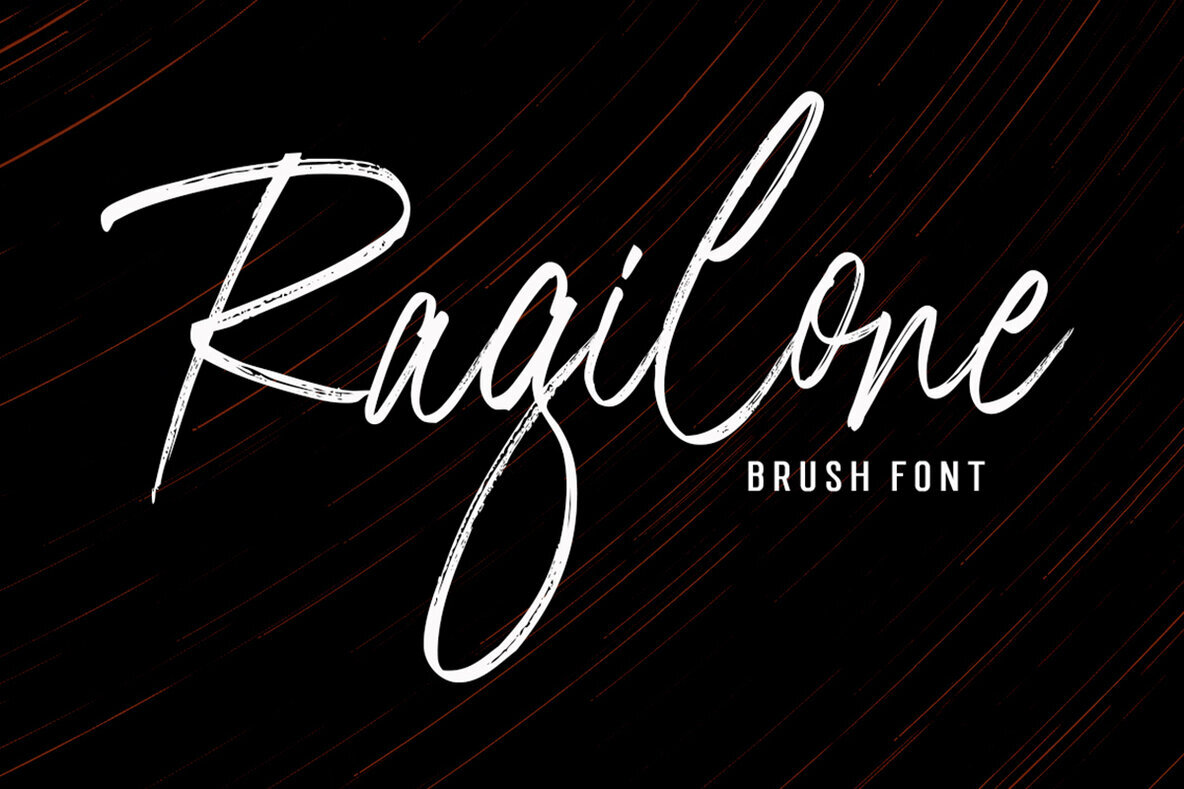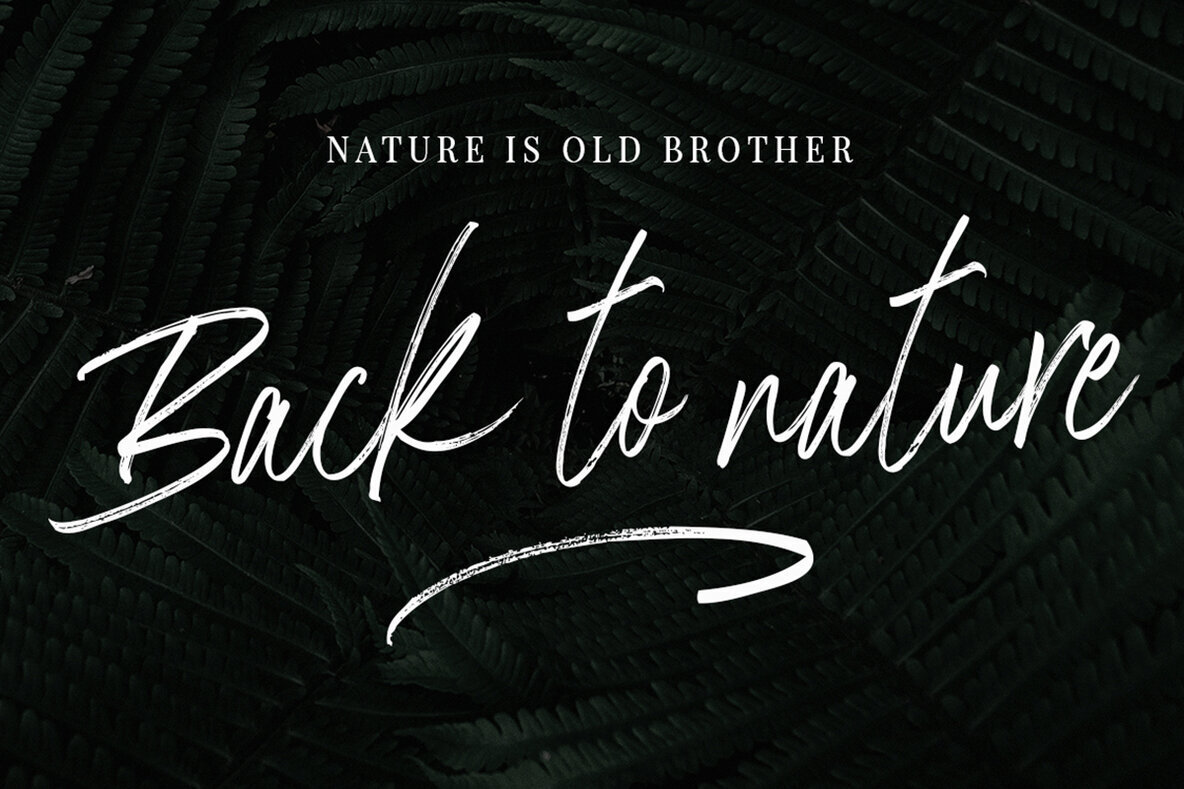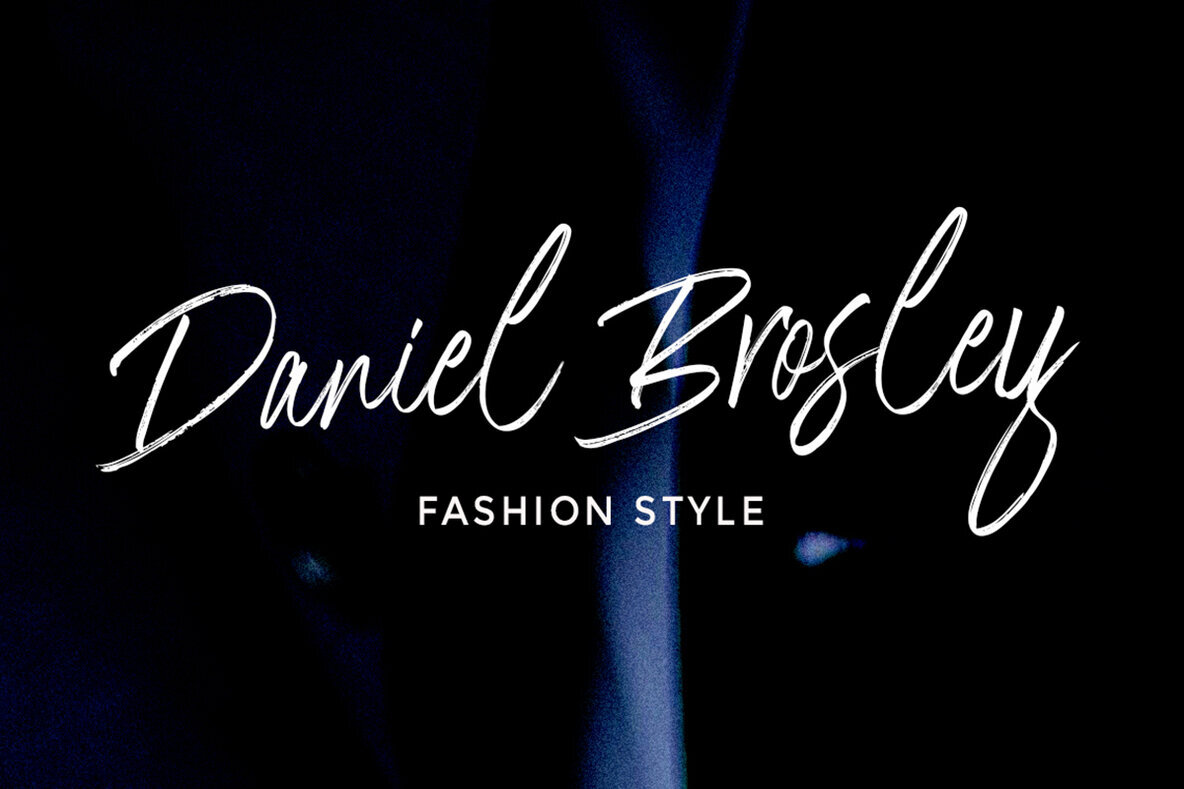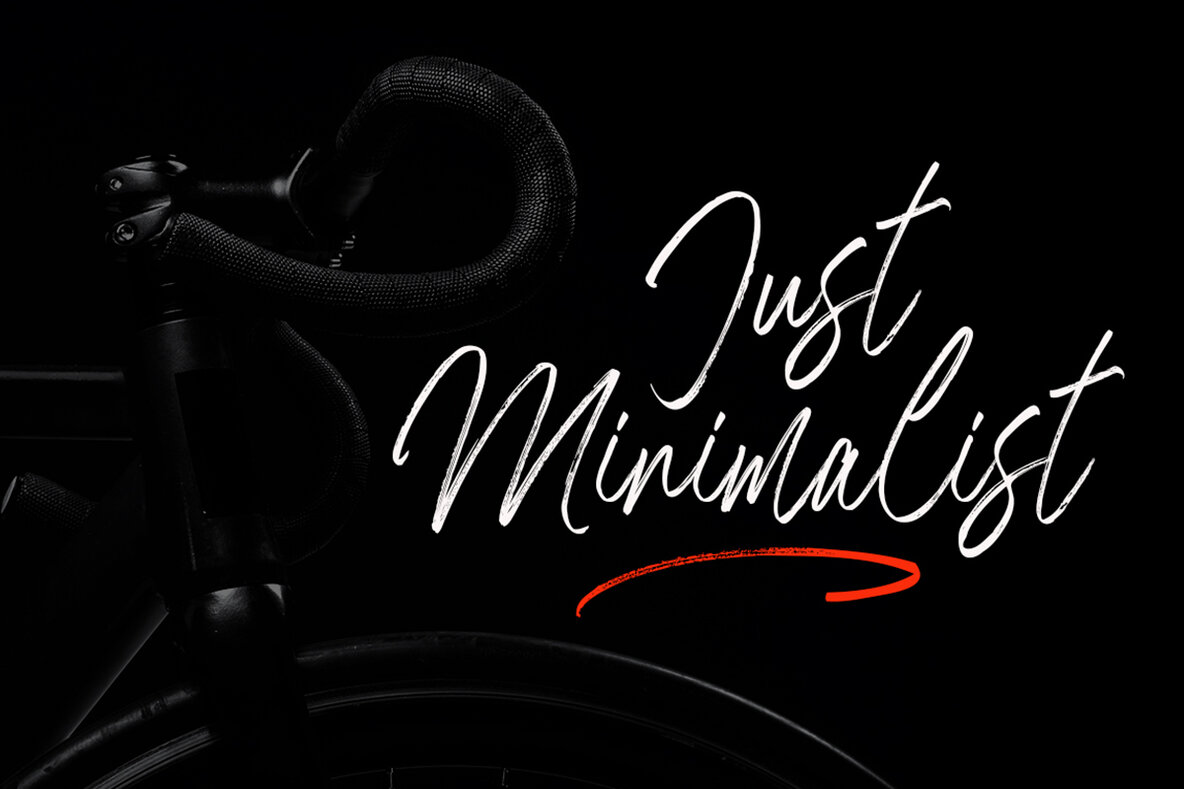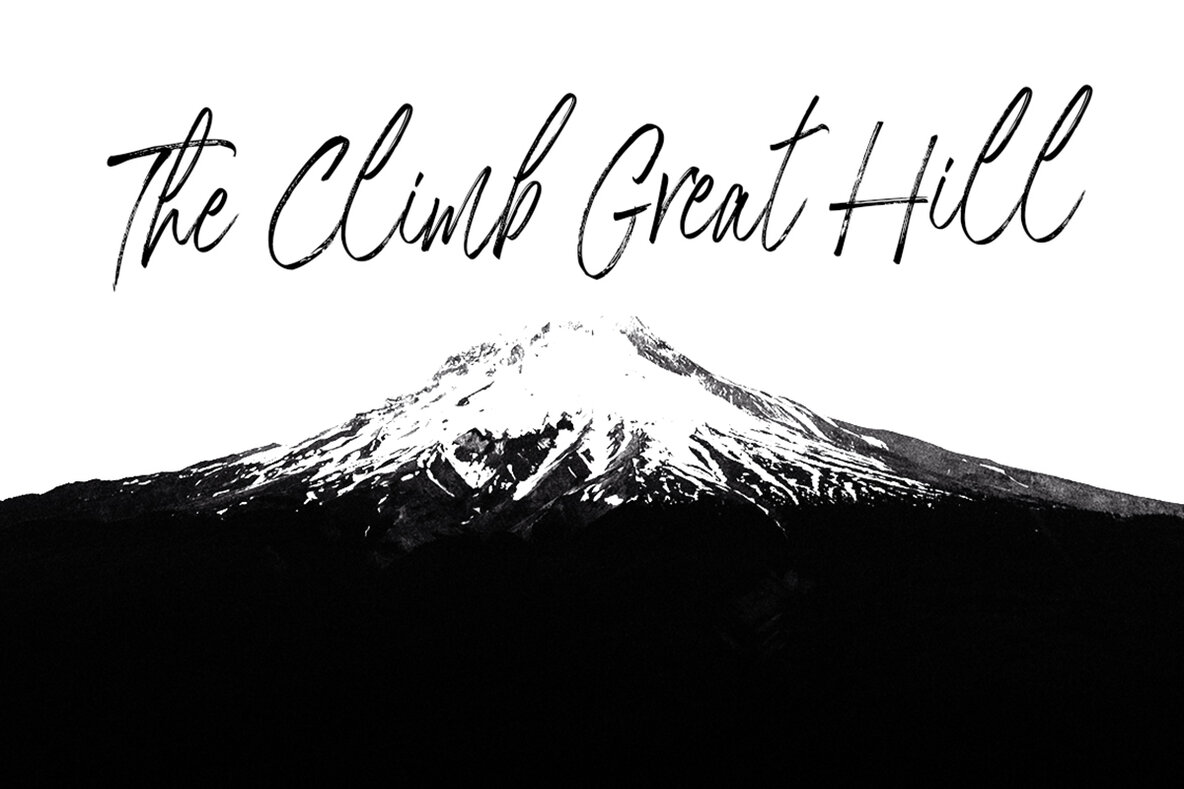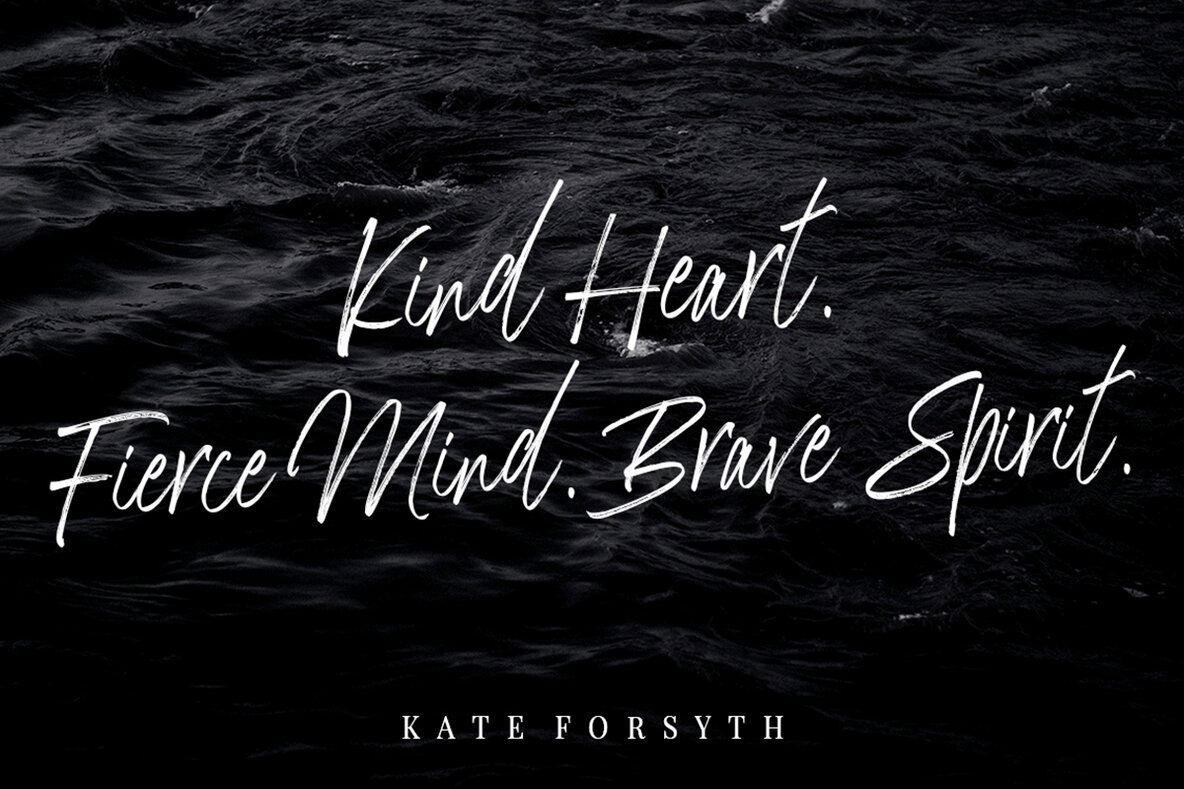
Ragilone Font
Ragilone is an exquisite brush font by LetterFresh Studio that embraces a contemporary design with a handmade, naturally irregular baseline. This font is perfect for adding a personal touch to a diverse range of projects. Designed to be versatile, Ragilone is ideal for title design, apparel, book covers, quotes, logos, greeting cards, t-shirts, packaging, and posters.Ragilone Brush Font